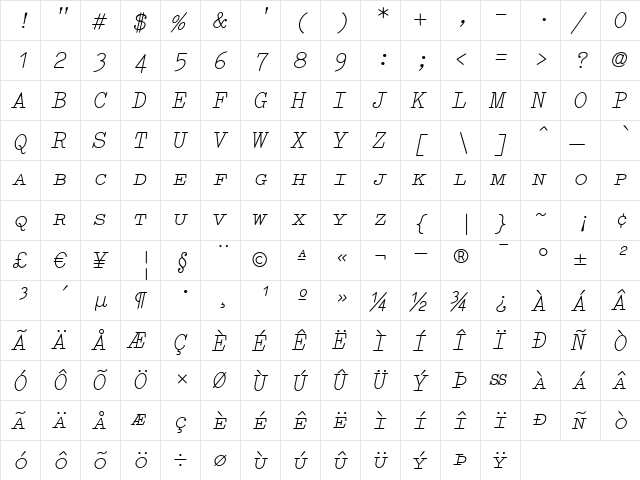
Elementa SC ItalicMedium
Design Context for Elementa SC Typeface
Elementa SC is a composed and adaptable typeface that performs quietly and consistently across a wide range of design contexts. The dynamic lean of this cut emphasises speed and emphasis in any layout.